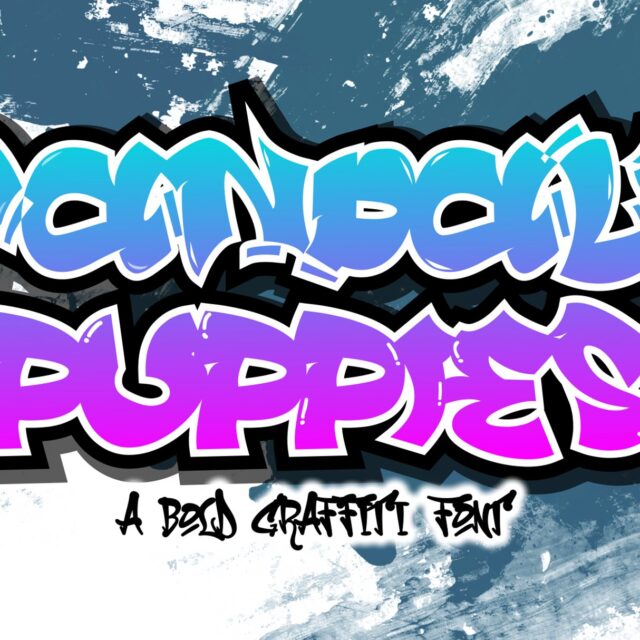
About the Font
Vandals Puppies
"Vandals Puppies" is a bubble graffiti font. Fonts like this are often used in designs that want to convey a creative and energetic graffiti style. Its bubble or…
“Vandals Puppies” is a bubble graffiti font. Fonts like this are often used in designs that want to convey a creative and energetic graffiti style. Its bubble or balloon-like characters provide a bold and expressive look and are commonly used in poster designs, logos, or street art. With “Vandals Puppies,” you can bring the energetic street art vibe to your design projects.